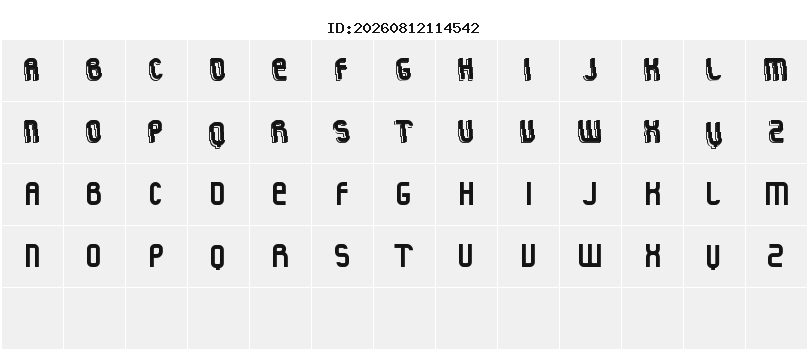
• Font Name: Rock'n Fluid
• Designer: Qkila
Rock'n Fluid.ttf is a modern, elegant sans-serif font designed for ultimate readability and visual harmony. Perfect for branding, headlines, web design, and print materials.